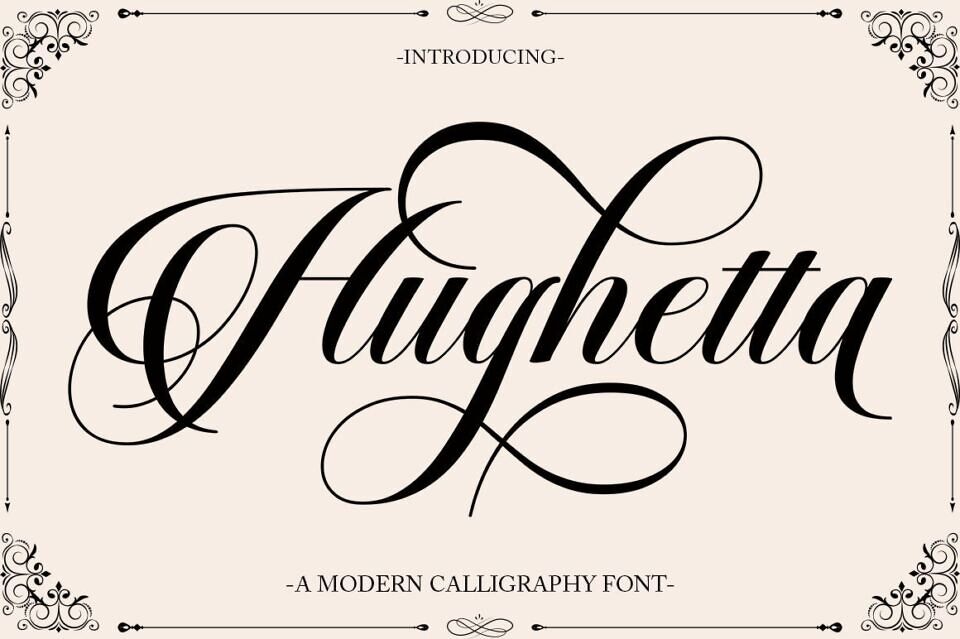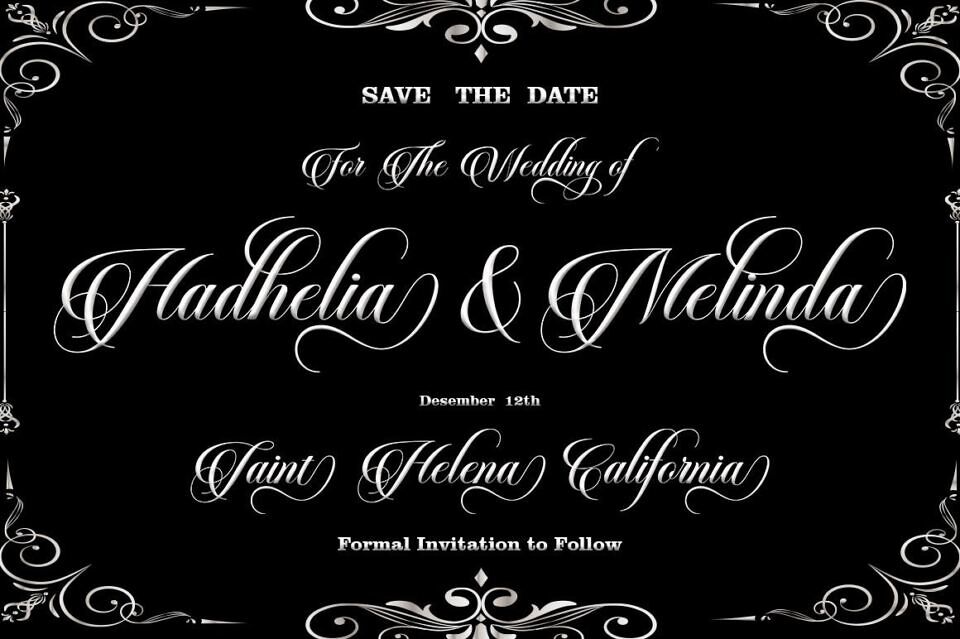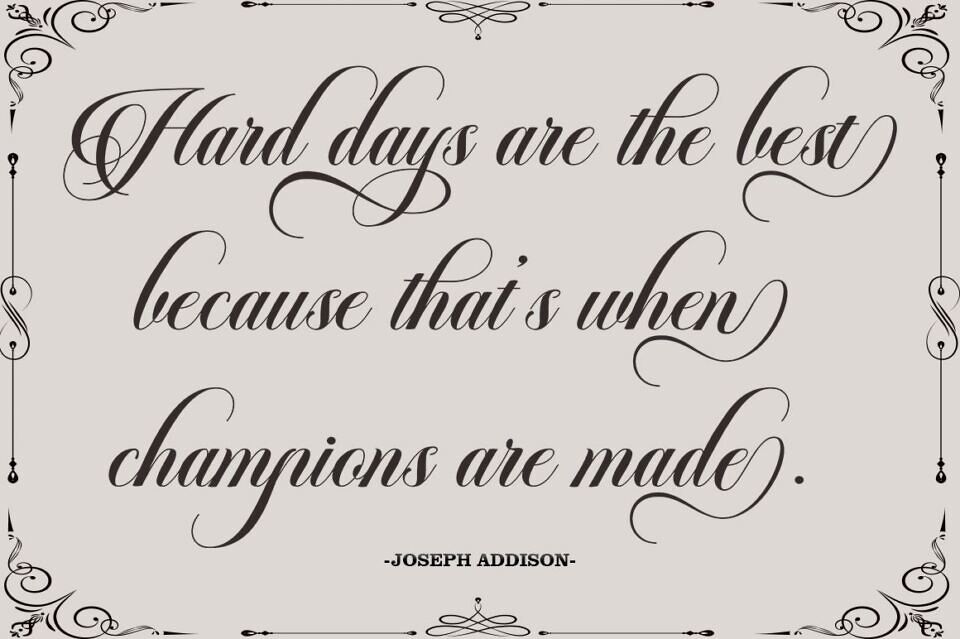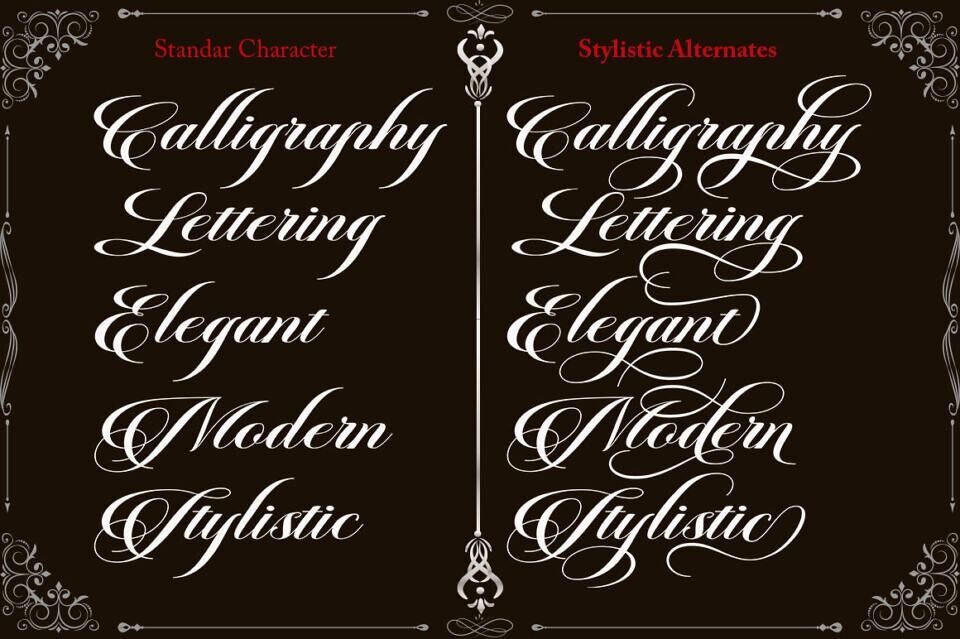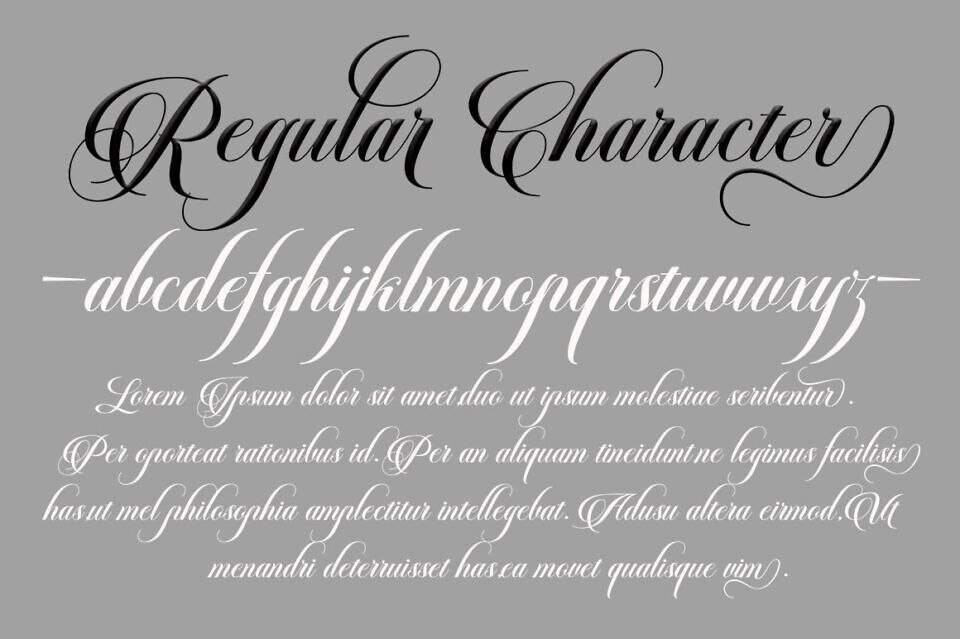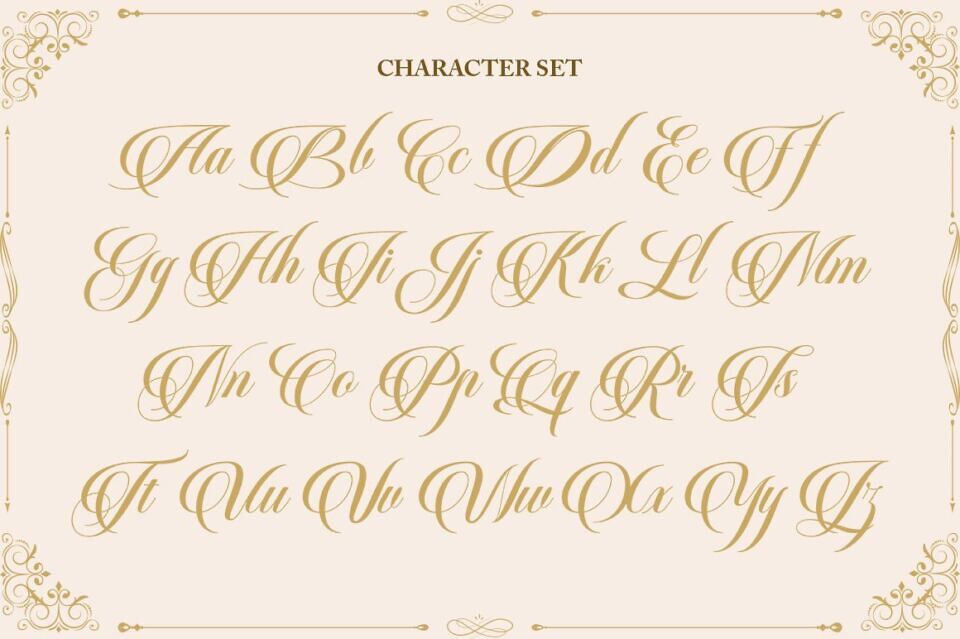
Hughetta is the font of choice for writing things beyond words. This typeface is designed with great detail to convey stylish elegance. So, it can be said, the character of the transformation is very beautiful, a kind of classic ornamental copper script.
Hughetta provides alternative variants of most fonts, binders, and many calligraphy tips, ideal for elegant labels, high-end packaging, stationery, and composition for select brands, beautiful titles, paragraphs, fonts, and short text, meant to be read-only with eyes or meant to be whispered into someone’s ear.